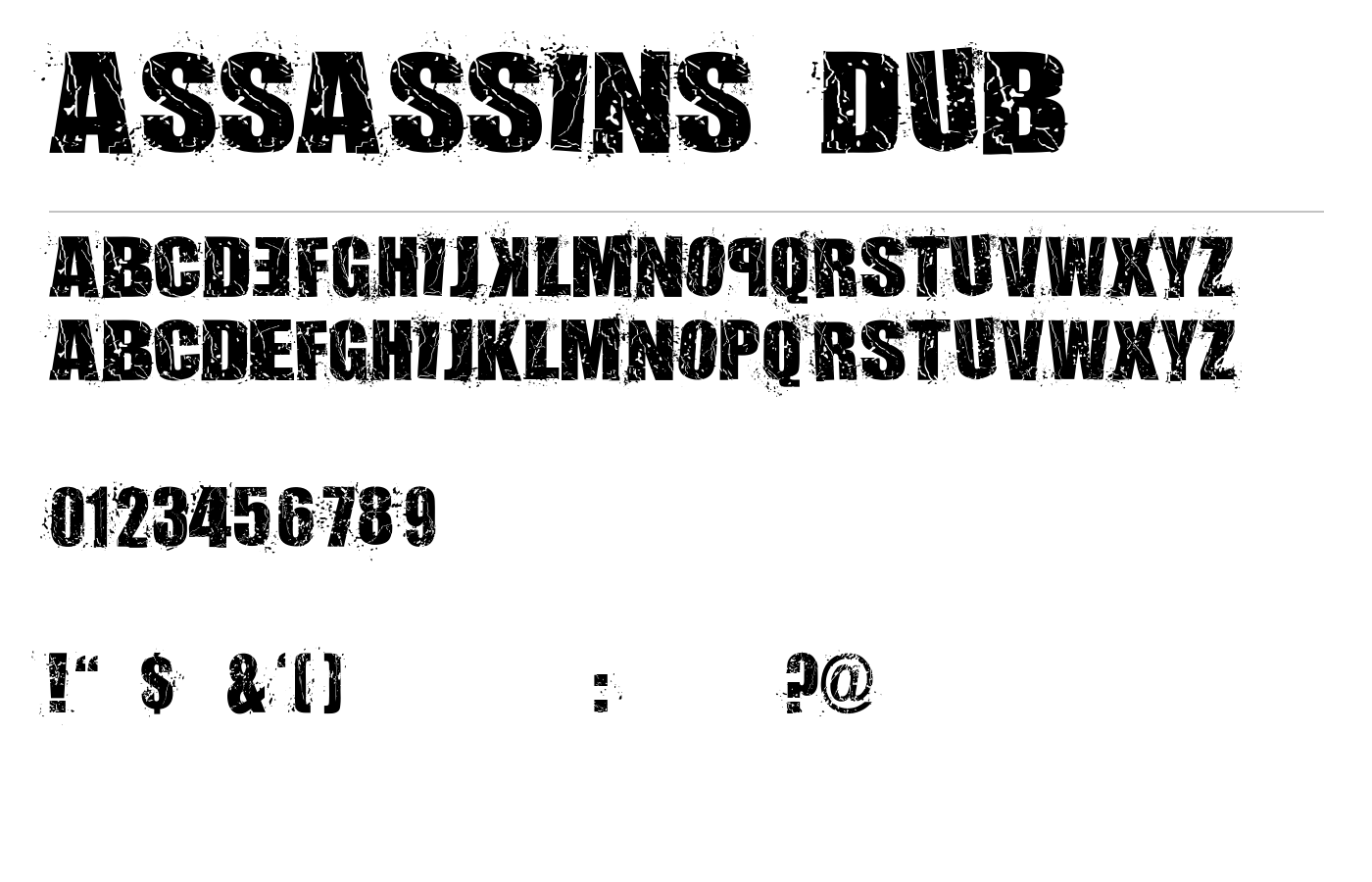
Assassins Dub is a bold, distressed stencil-style sans serif font that combines heavy weight with a rough, grungy texture for a strong, rebellious character. With its uppercase-only letters, narrow width, and worn effect, this font evokes an urban, edgy vibe perfect for posters, streetwear branding, and anything needing a bold, dramatic impact. It works well where a tough, raw attitude is desired, making it ideal for attention-grabbing headlines and designs that want to convey strength and rebellion.
Assassins Dub Font